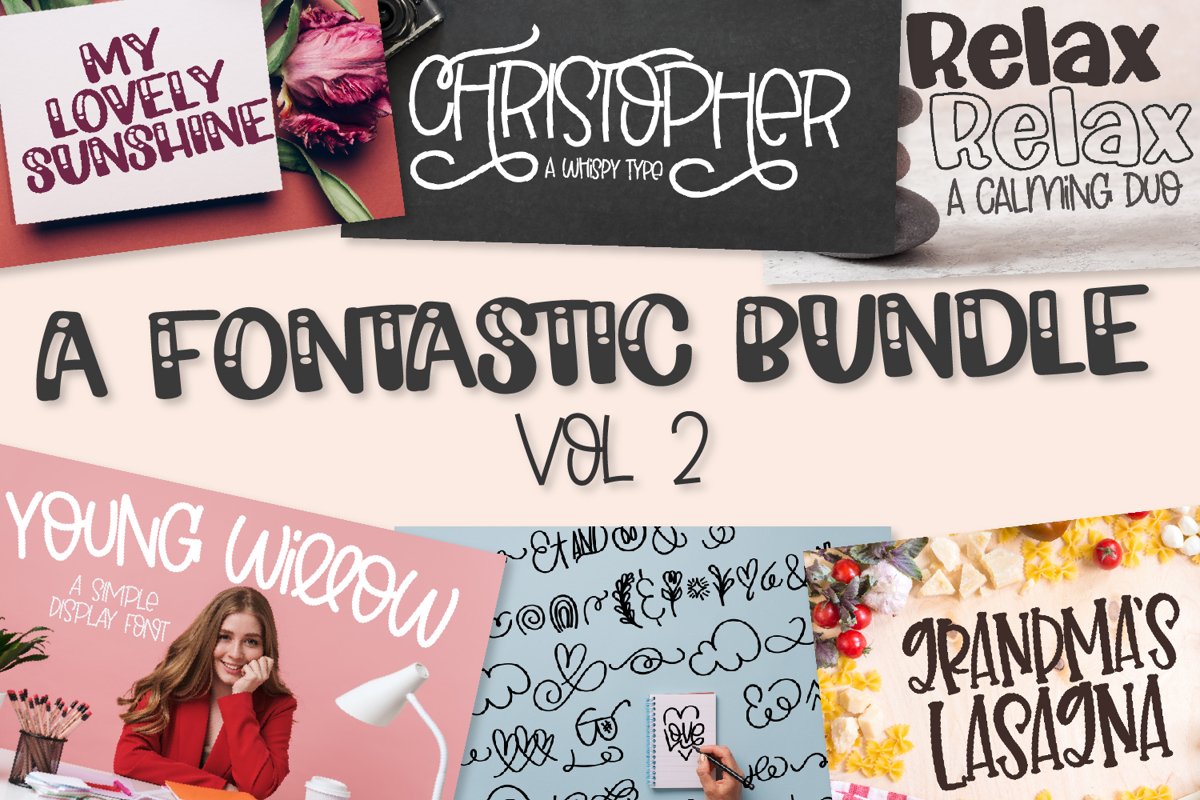
A Fontastic Bundle - Volume 2 - 7 New Fonts!
This 7 pack of fonts comes with everything you need to start designing.
Christopher is a swirly font with it’s alternative swooshes on the upper case - meaning you don’t need to use a character map or Font Book to find those extra bits. Just alternate your caps - LikE ThIs
Grandma’s Lasagna is a simple hand lettered with nice clean cut friendly nodes.
Young Willow is a fun, soft sans serif with a hand lettered look.
“Relax” and “Relax Outline” are a duo with a bubble letter look - use together for a layered look or even add the outlined version to a coloring book design.
My Lovely Sunshine (CLN-MySunshine) is a font with a “shine” look to it - using the Relax font as a base, meaning you can mix and match these in a design to create a fun effect.
& Last but not least, “CLN-DoodlyDoos” is a doodle font with over 50 hand drawn glyphs.